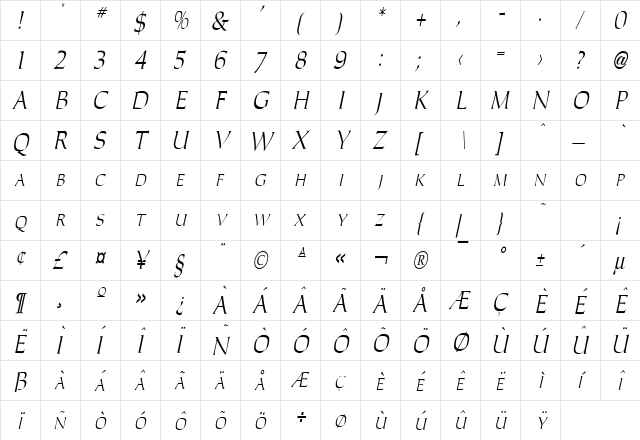
Carla Thin Italic
Design Context for Carla Thin Typeface
Carla Thin is a composed and adaptable typeface that performs quietly and consistently across a wide range of design contexts. The dynamic lean of this cut emphasises speed and emphasis in any layout. Its slender proportions lend an understated elegance to any composition.
Pro Tip: Try Carla Thin for annotation and caption copy alongside an upright companion — the contrast in angle creates a dynamic but ordered typographic system.